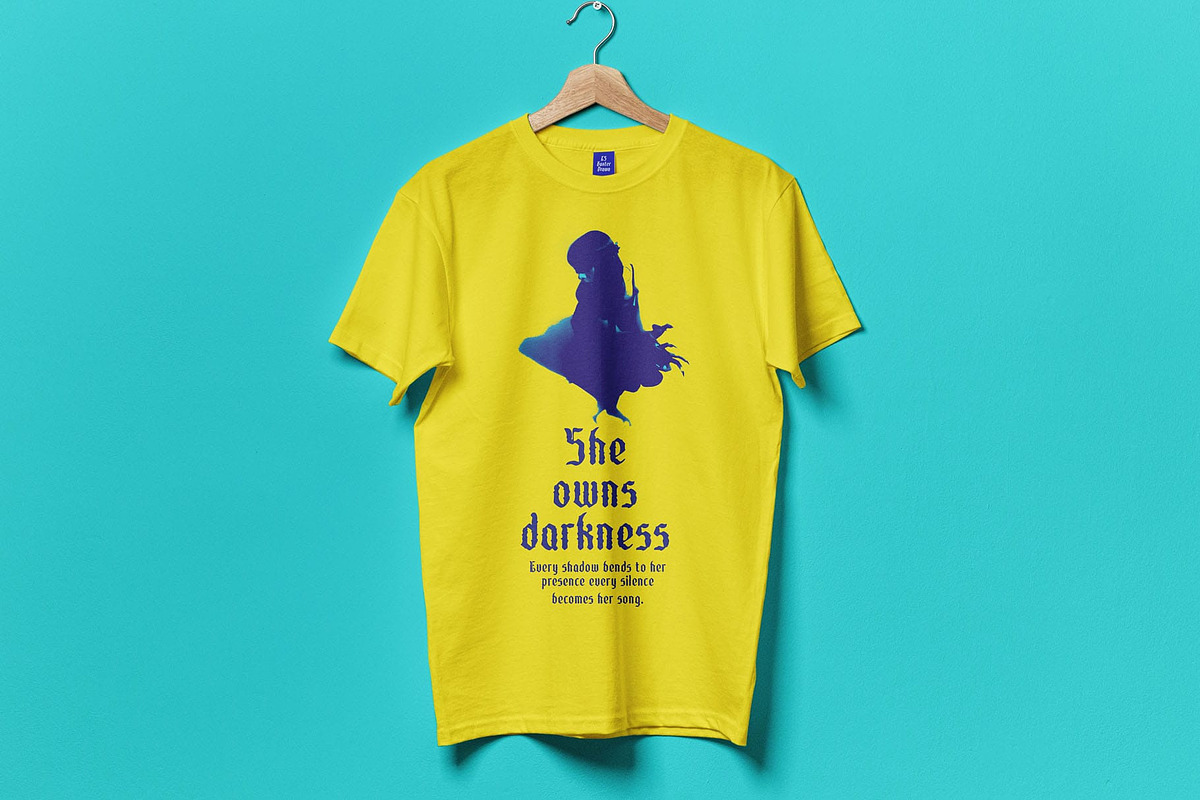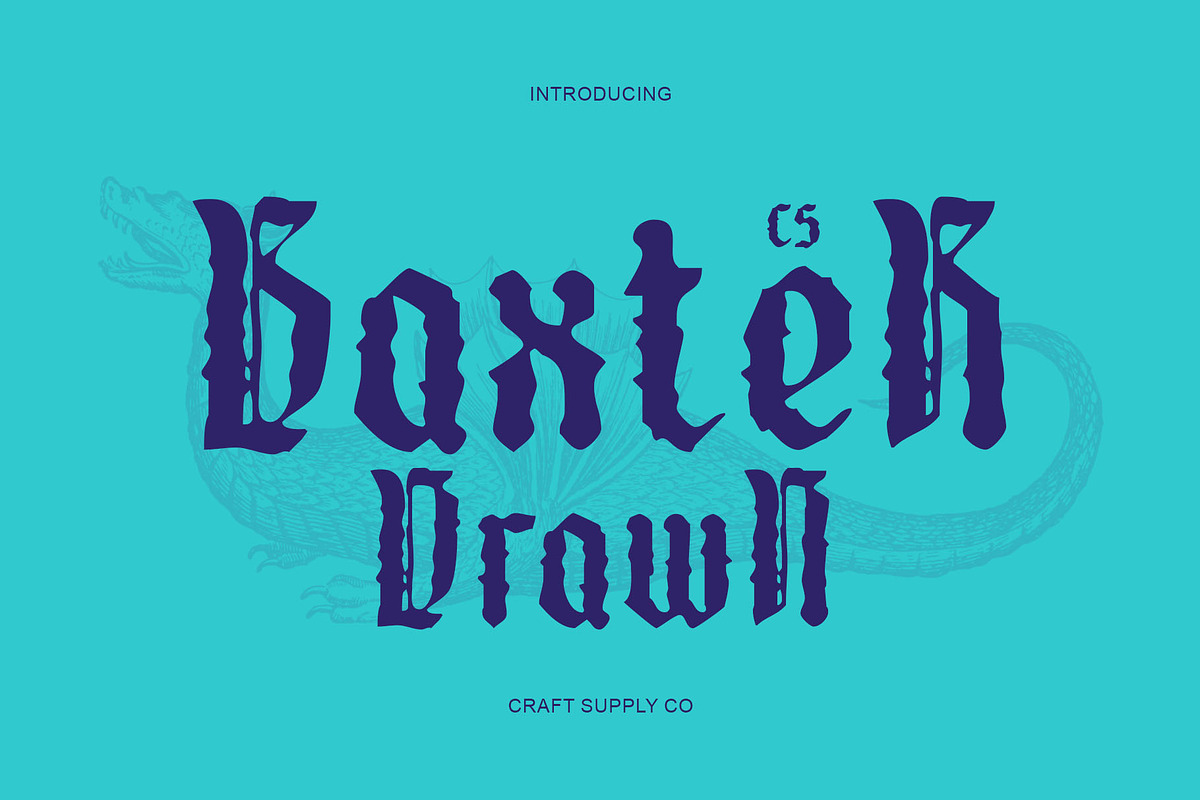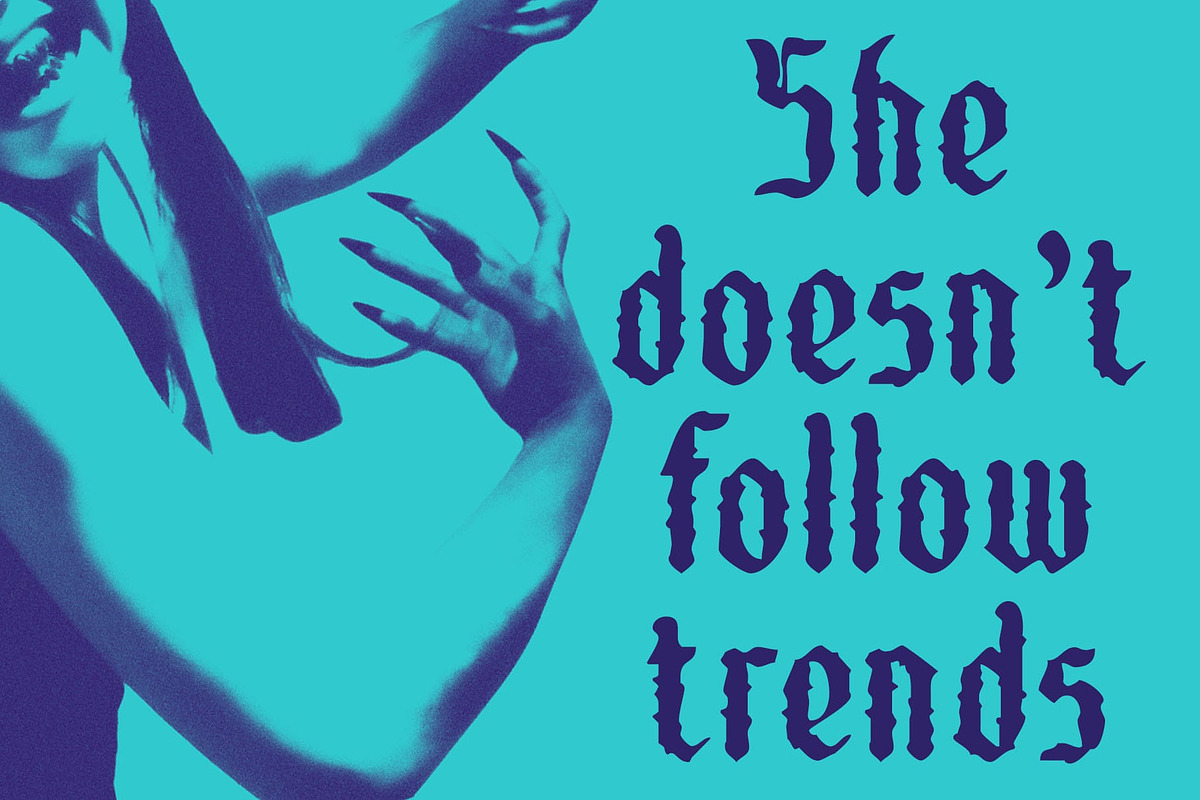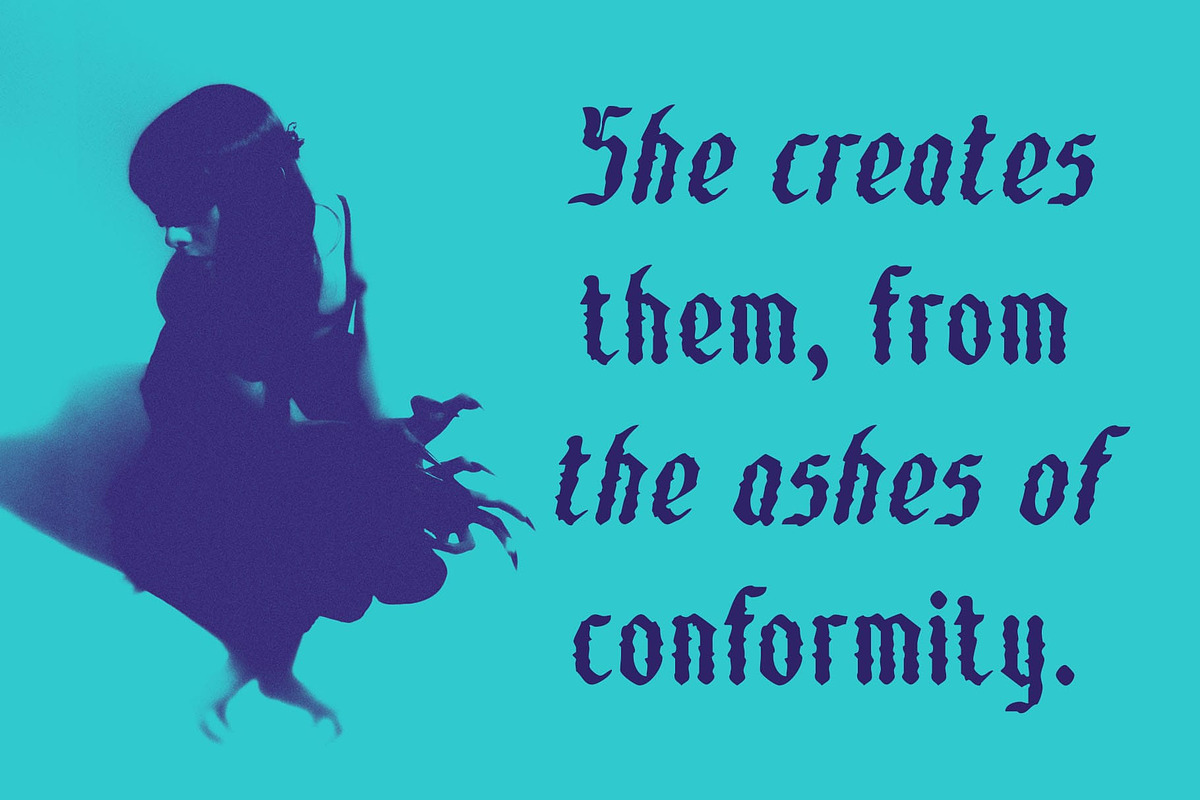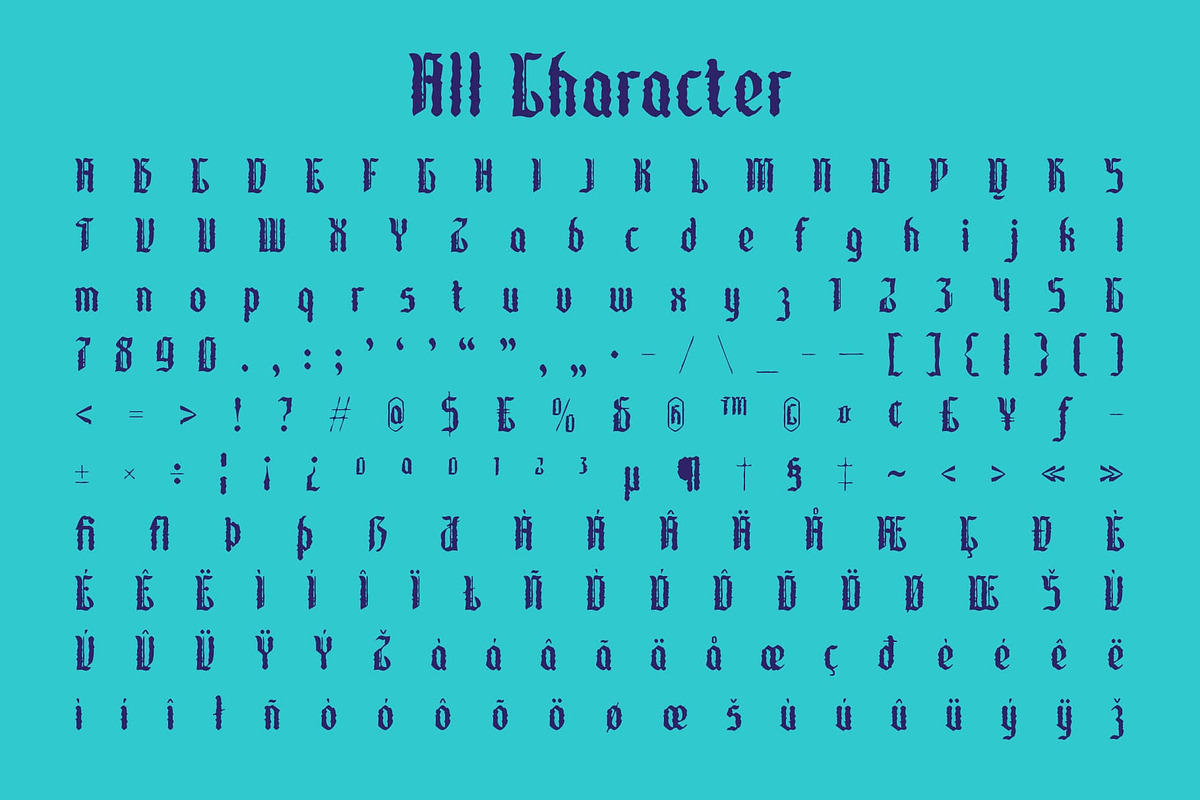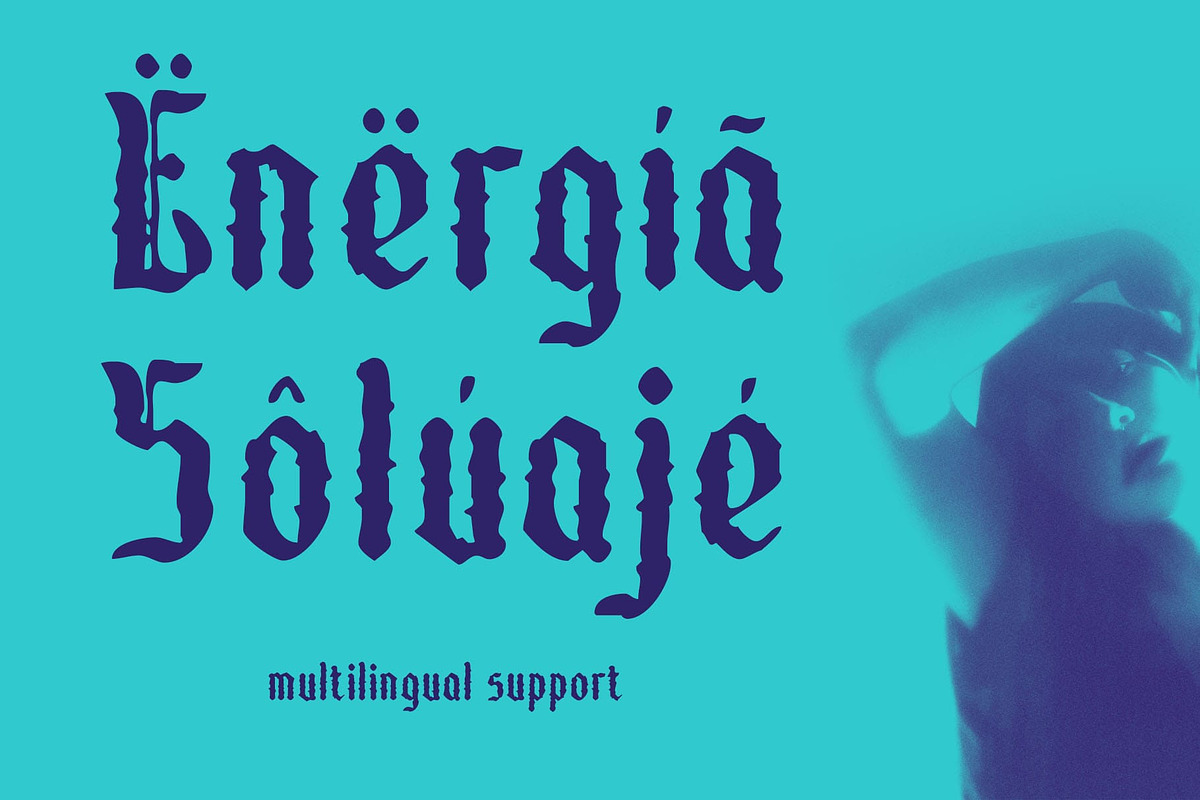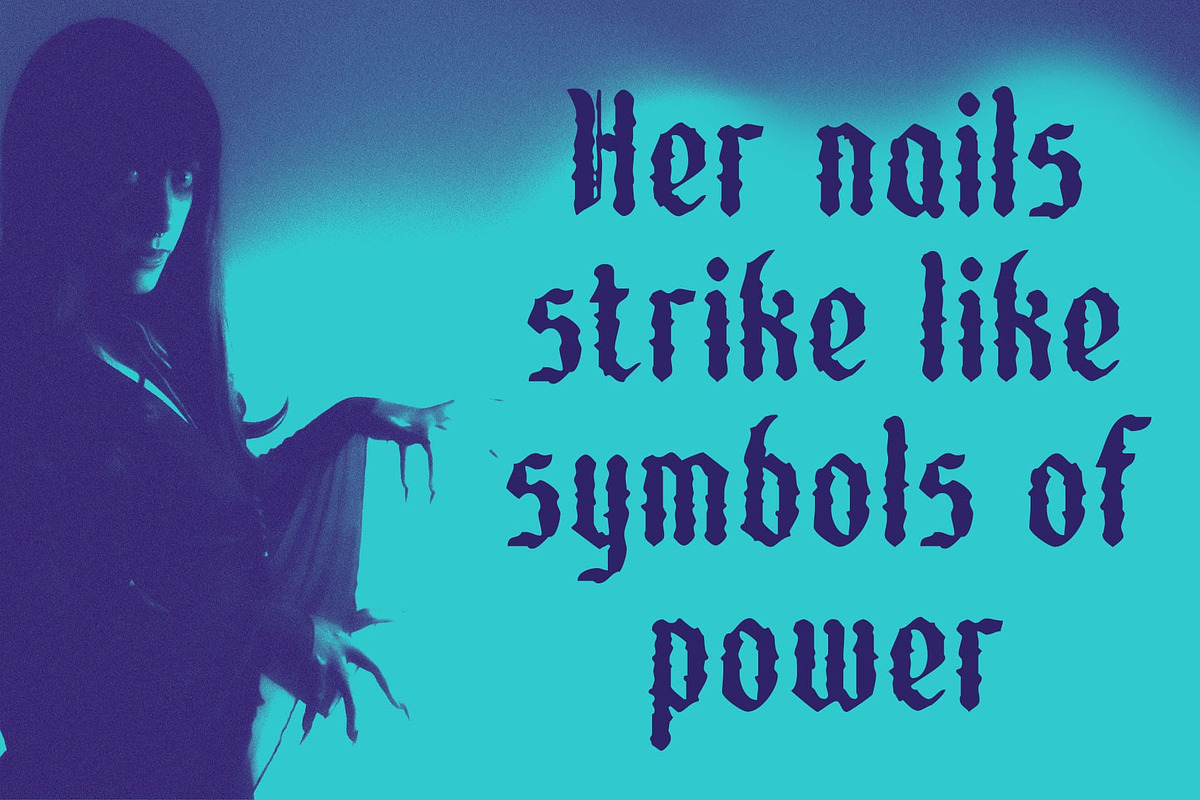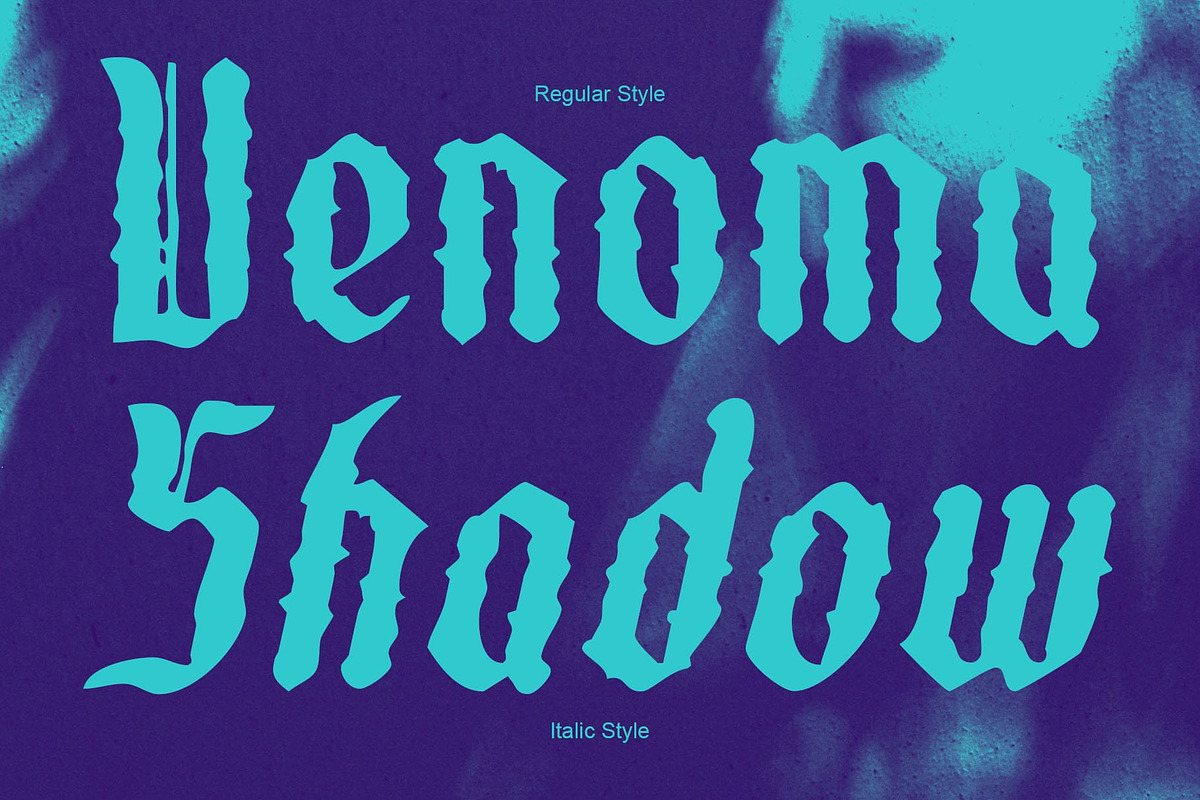
CS Baxter Drawn
CS Baxter Drawn – Blackletter Font with Drawn Texture: Bold Tradition, Handcrafted Character
Classic Form Meets Artistic Expression This is a bold blackletter font that blends traditional Gothic strength with handcrafted artistry. Its bold, dramatic strokes evoke a sense of heritage and depth, while the drawn texture introduces a unique, personal touch that sets it apart from standard blackletter designs.
Handmade Texture for Authentic Appeal The drawn texture adds a layer of warmth and authenticity, giving each letter a tactile, hand-rendered look. This handcrafted quality enhances its visual richness, making it perfect for projects that seek a balance between old-world craftsmanship and creative modernity.
Timeless Yet Distinctive Design With its commanding structure and textured finish, this font captures the spirit of classic typography while remaining distinct and adaptable. It’s a perfect choice for designers who want to convey authority, artistry, and character in one cohesive form.
Ideal for Book Covers, Posters, and Branding From bold editorial headlines to expressive logo designs, this font thrives in visual storytelling. Whether used in book covers, vintage-themed branding, or dramatic posters, this font ensures your design communicates sophistication, creativity, and timeless power.